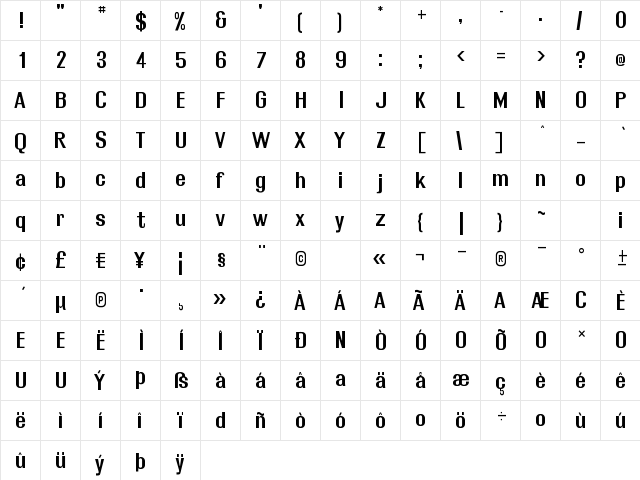
Rollout Semibold
Design Context for Rollout Typeface
Rollout offers clean, dependable letterforms without strong stylistic allegiance, making it a practical choice for designers who need flexibility. Its bold stroke weight gives it real presence on the page.